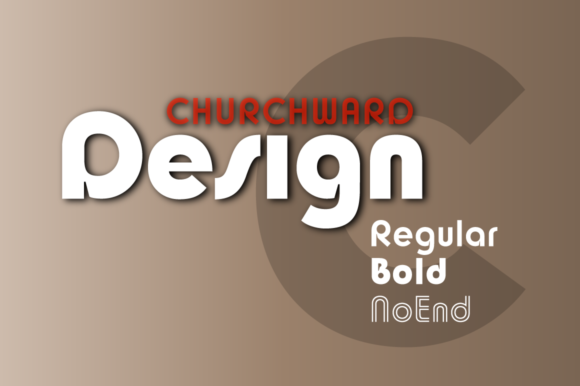
Churchward Design Font: Elevate Your Designs with a Bold and Sharp Display Font
Are you looking for a font that can add a touch of sophistication and elegance to your designs? Look no further than Churchward Design Font. This bold and sharp looking display font is perfect for designers who want to create stunning works that stand out from the crowd. In this article, we’ll explore the features and benefits of Churchward Design Font, and show you how to use it to take your designs to the next level.
Key Features of Churchward Design Font
- Bold and Sharp Design: Churchward Design Font boasts a bold and sharp design that is sure to grab attention. Its sleek lines and precise curves make it perfect for creating stunning headlines, titles, and captions.
- Display Font: This font is specifically designed as a display font, making it ideal for use in large sizes. It’s perfect for creating eye-catching titles, headings, and other design elements that need to make a statement.
- Endless Possibilities: With Churchward Design Font, the possibilities are endless. Use it to create stunning posters, flyers, brochures, and other marketing materials that will leave a lasting impression on your audience.
Benefits of Using Churchward Design Font
So why should you choose Churchward Design Font for your designs? Here are just a few benefits of using this amazing font:
- Stand Out from the Crowd: With Churchward Design Font, you can create designs that stand out from the crowd. Its bold and sharp design ensures that your message will be noticed and remembered.
- Professional Look and Feel: Churchward Design Font gives your designs a professional look and feel that’s sure to impress your audience. Whether you’re creating marketing materials, websites, or social media graphics, this font will help you create a cohesive and polished brand image.
- Easy to Read: Despite its bold design, Churchward Design Font is easy to read, even in large sizes. This makes it perfect for creating headlines, titles, and other design elements that need to be noticed and understood quickly.
- Versatile: Churchward Design Font is a versatile font that can be used in a variety of design contexts. From posters and flyers to websites and social media graphics, this font can be used to create stunning designs that capture your audience’s attention.
Design Tips for Using Churchward Design Font
Here are some design tips to keep in mind when using Churchward Design Font:
- Use it for Headlines and Titles: Churchward Design Font is perfect for creating bold and eye-catching headlines and titles. Use it to grab attention and draw your audience in.
- Pair it with Other Fonts: Churchward Design Font can be paired with other fonts to create a cohesive and polished brand image. Experiment with different font combinations to find the look that works best for your design.
- Use it in Large Sizes: Churchward Design Font is specifically designed as a display font, making it perfect for use in large sizes. Use it to create stunning posters, flyers, and other marketing materials that will leave a lasting impression on your audience.
- Keep it Simple: Don’t overcomplicate your design with too many fonts or design elements. Keep it simple and use Churchward Design Font to create a bold and eye-catching design that gets your message across.
In conclusion, Churchward Design Font is a bold and sharp looking display font that’s perfect for designers who want to create stunning works that stand out from the crowd. With its endless possibilities, ease of use, and professional look and feel, this font is sure to become a staple in your design library. So why wait? Download Churchward Design Font today and start creating stunning designs that capture your audience’s attention.